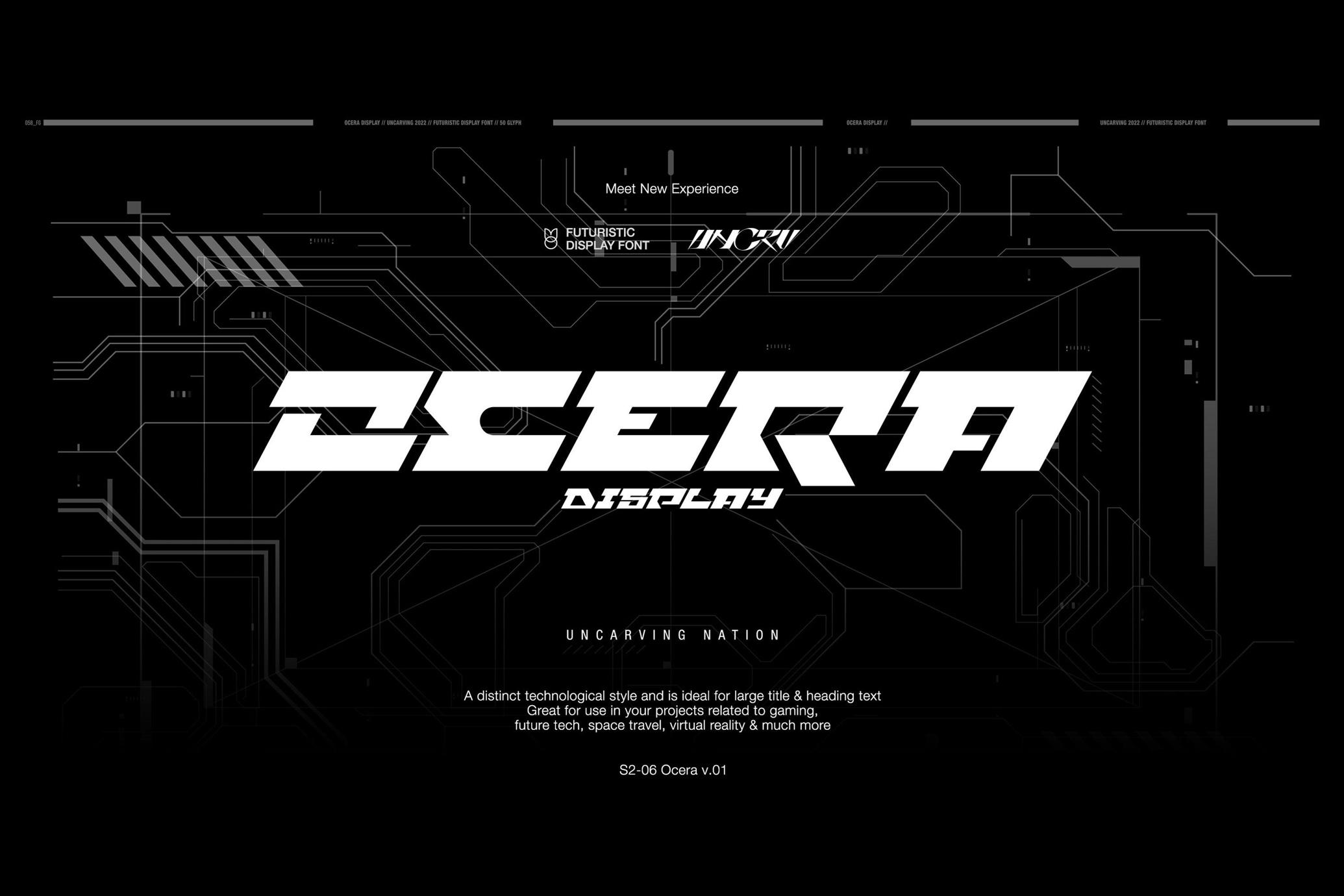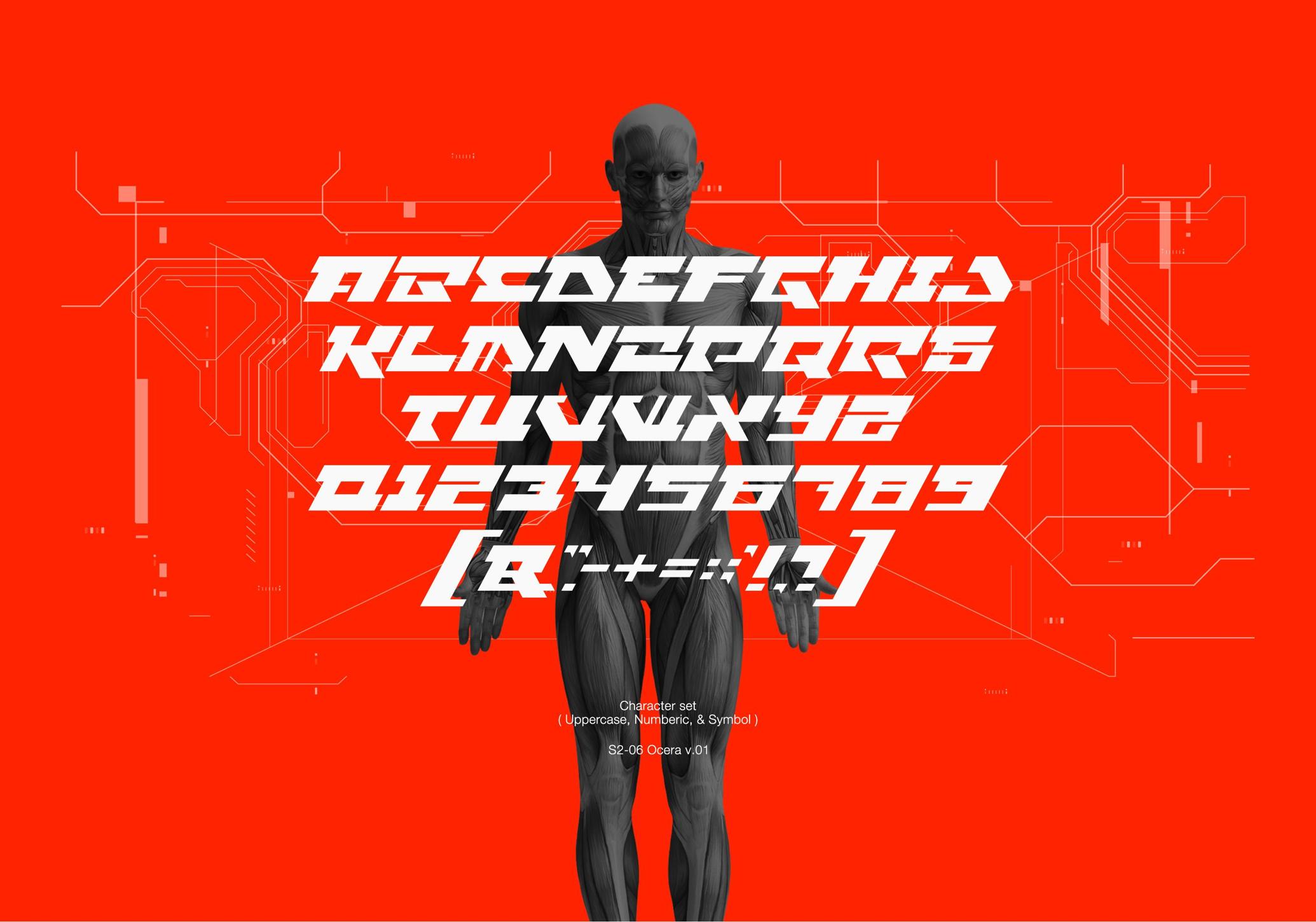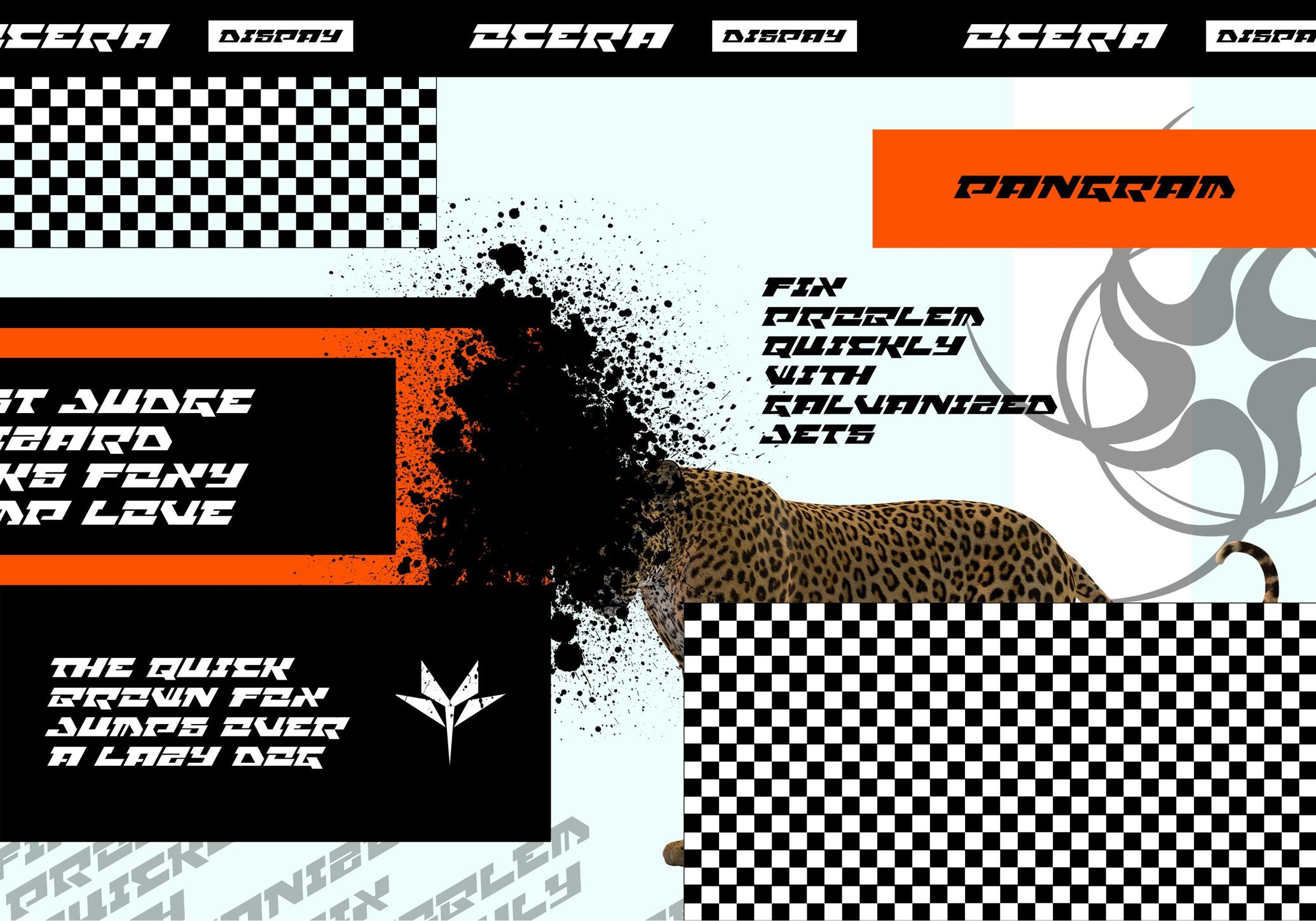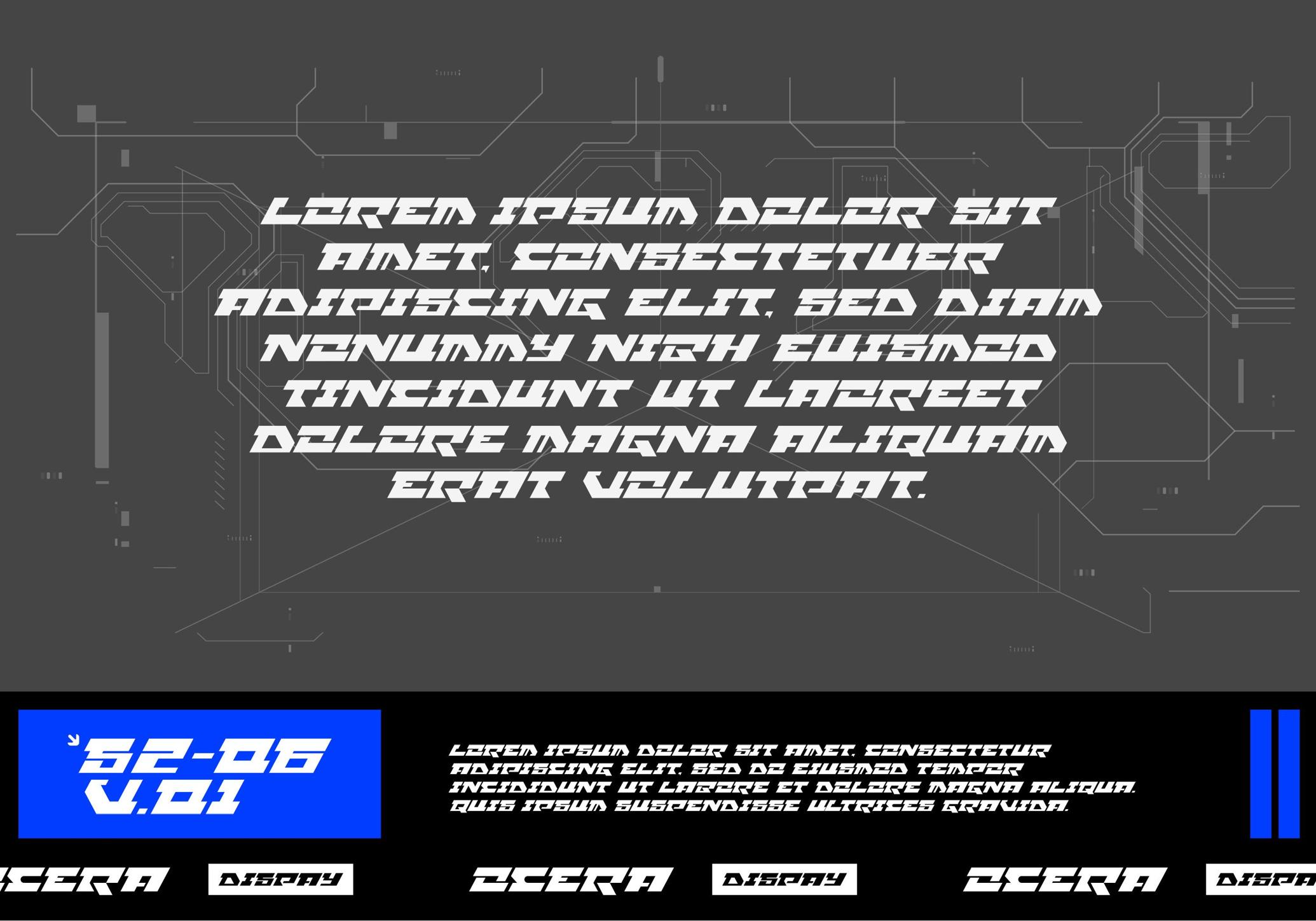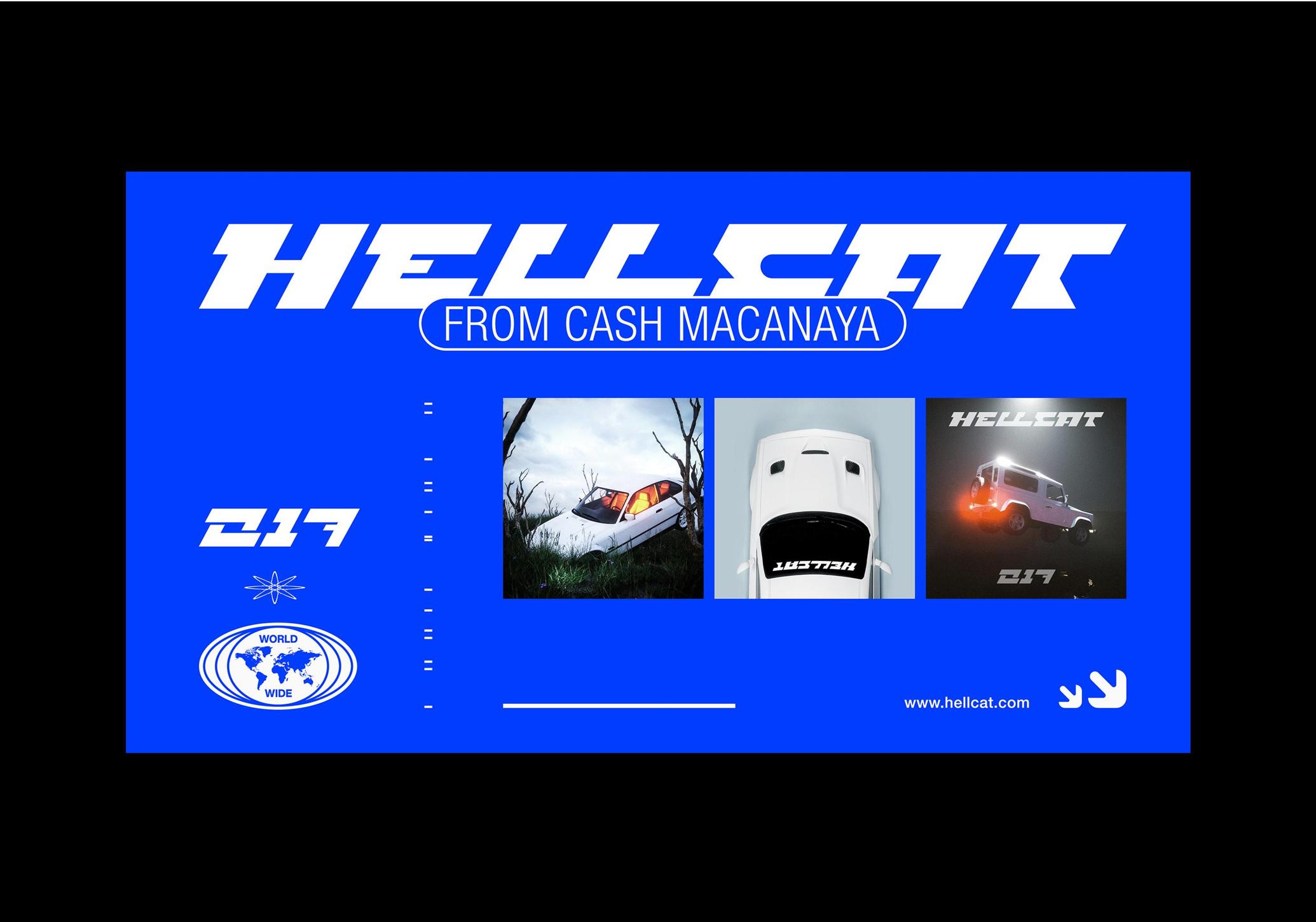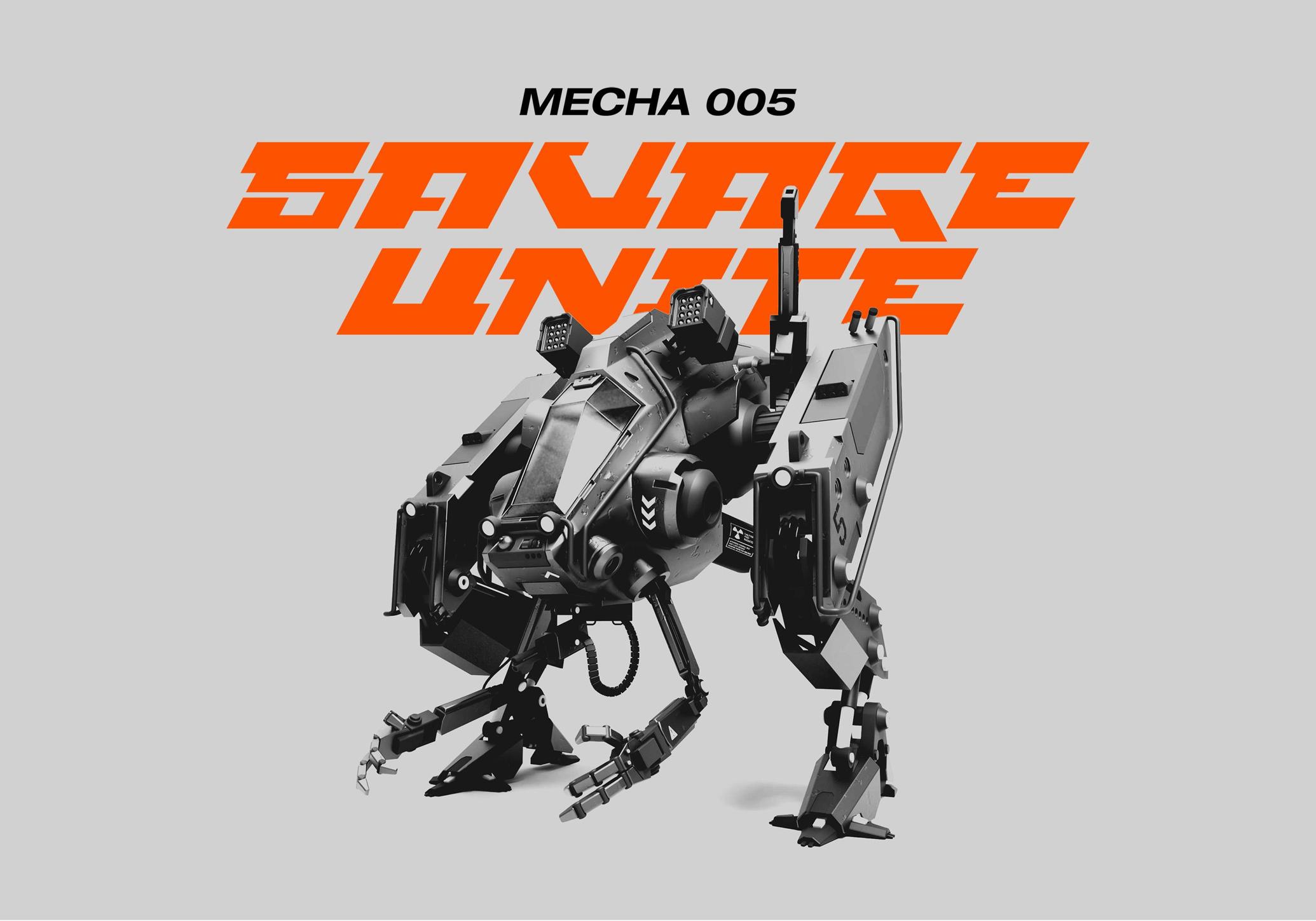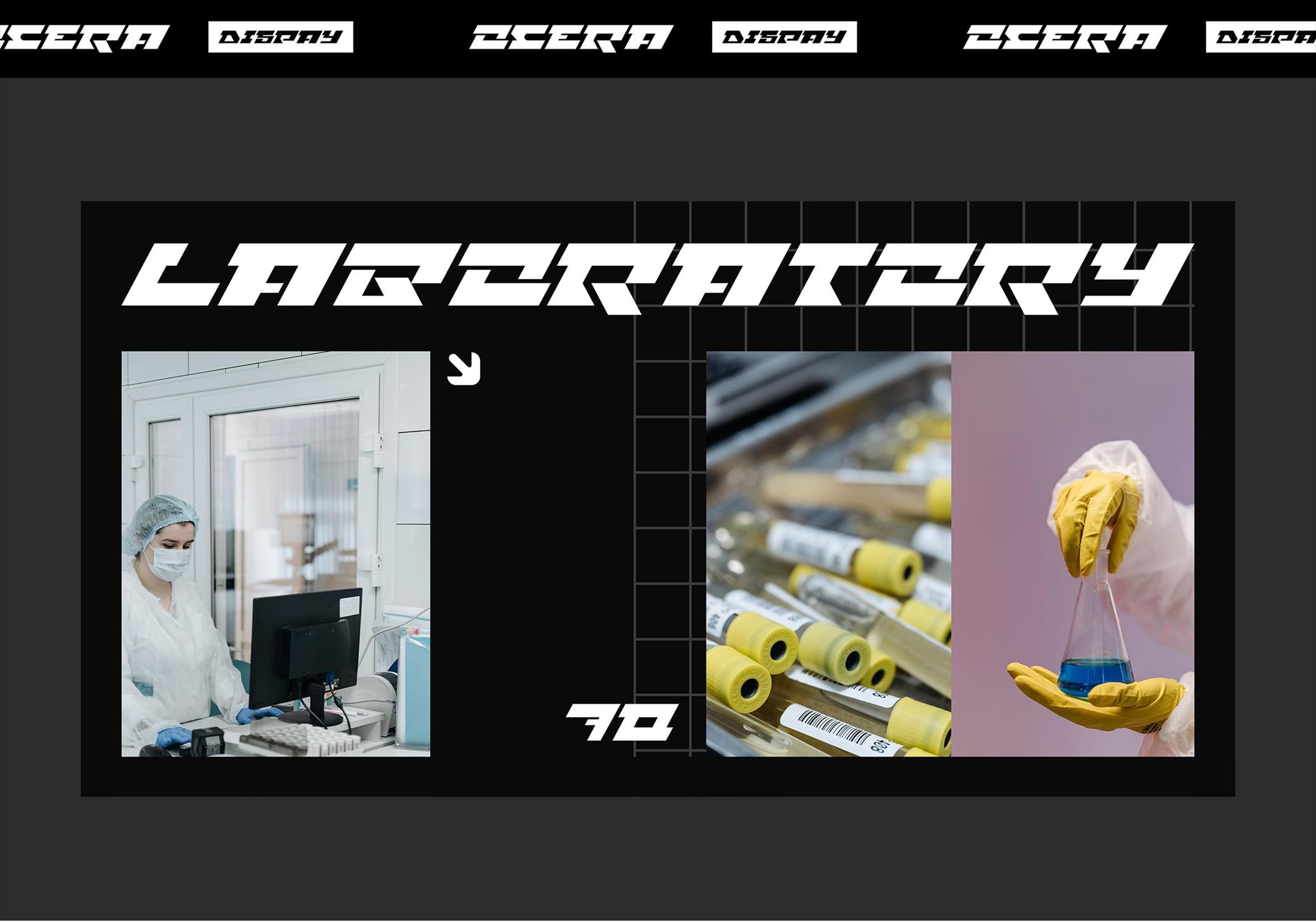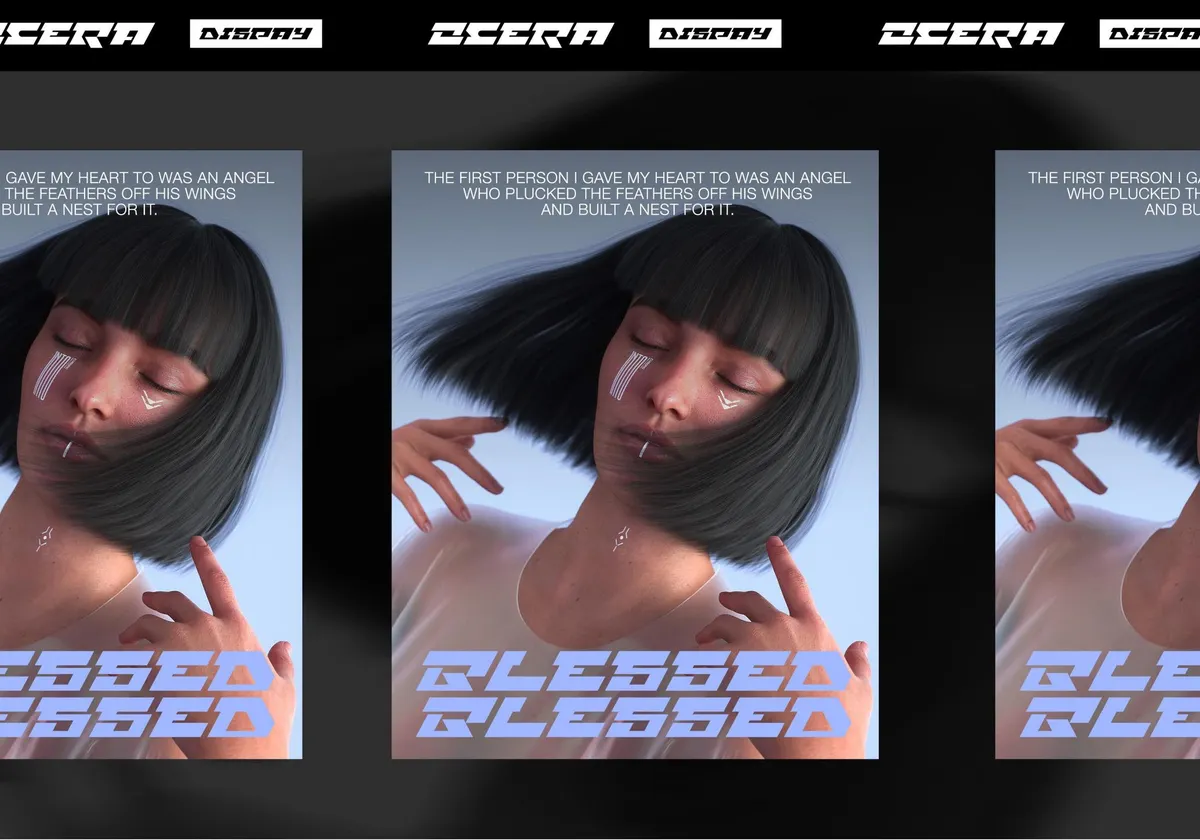
Ocera Display Font
Ocera font features sharp angles, wide stances, and high-velocity rhythm — a futuristic display face built for tech and sci-fi branding. The letterforms feel engineered, with geometric breaks and sppedy slants Best suited for film posters, experimental interfaces, esports branding, techwear labels, vinyl sleeves, game UI, type-led apparel, and bold typographic compositions.
The glyph set includes uppercase A–Z, numbers 0–9, and a full set of punctuation and symbols. Files are delivered in standard font formats for cross-platform compatibility.